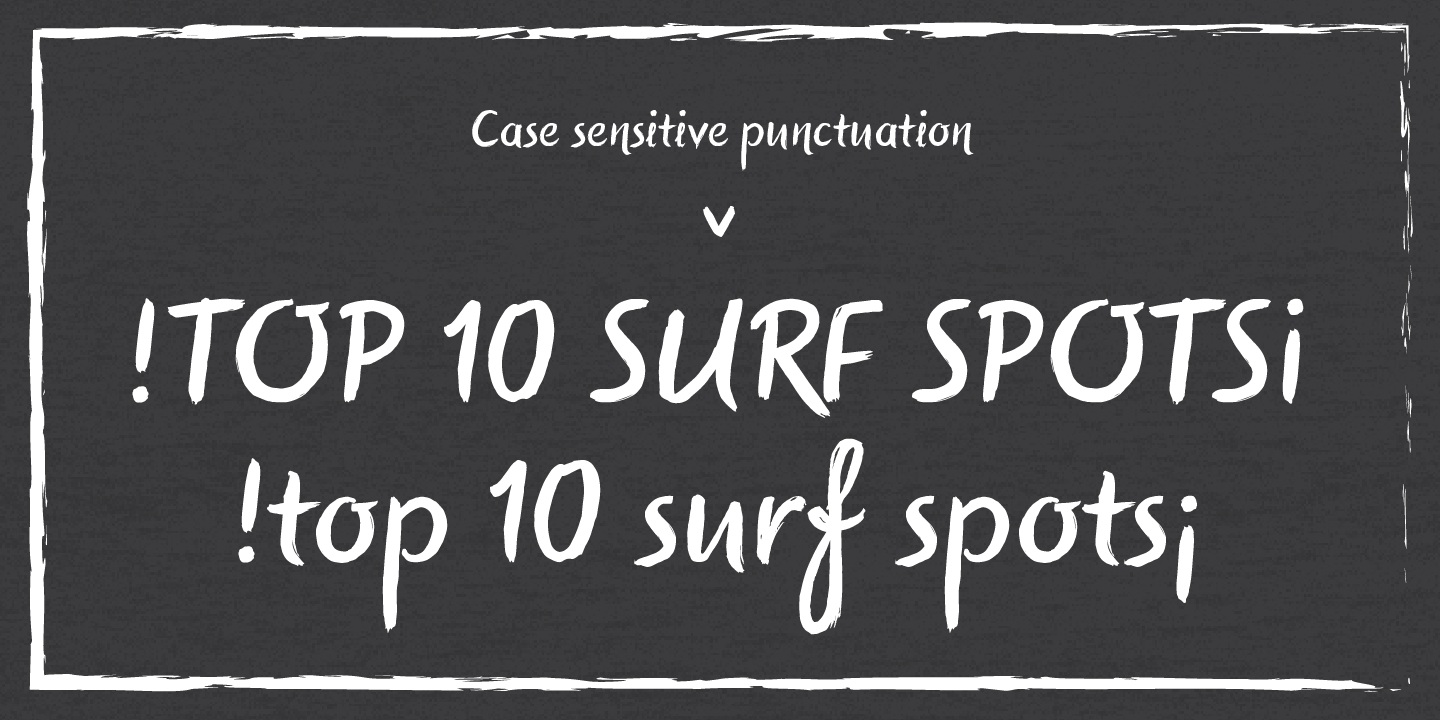
This mysterious font is perfect for esoteric branding, mystical product packaging, spiritual wellness centers, ancient wisdom publications, metaphysical bookstores, meditation retreat materials, sacred geometry designs, and alternative healing practices. Its enigmatic character makes it ideal for projects requiring spiritual depth and symbolic meaning.
Symbah Font is exciting because it embodies the essence of ancient wisdom and symbolic communication with letterforms that appear to carry hidden meanings and sacred knowledge. The font features mystical proportions, symbolic details, and spiritual elegance that reflects the profound mysteries and universal truths found in sacred texts and esoteric traditions. Its transcendent personality instantly communicates depth, wisdom, and the timeless search for higher understanding.
The Symbah Font family typically includes multiple mystical weights and symbolic variations, along with sacred symbols, spiritual ornaments, and esoteric decorative elements. Many versions feature alternate characters with different symbolic interpretations and special glyphs that enhance the mystical atmosphere and spiritual authenticity.
Whether you're developing spiritual brands, metaphysical publications, or consciousness-expanding campaigns, Symbah Font Free Download provides authentic mystical authority with contemporary functionality. This typeface transforms ordinary communications into sacred transmissions that resonate with seekers, spiritual practitioners, and anyone drawn to the deeper mysteries of existence. Its distinctive character adds immediate spiritual credibility while celebrating the eternal quest for Symbah Font Free Download and the profound wisdom that emerges when we explore the symbolic language that connects all consciousness and reveals the hidden patterns underlying reality.